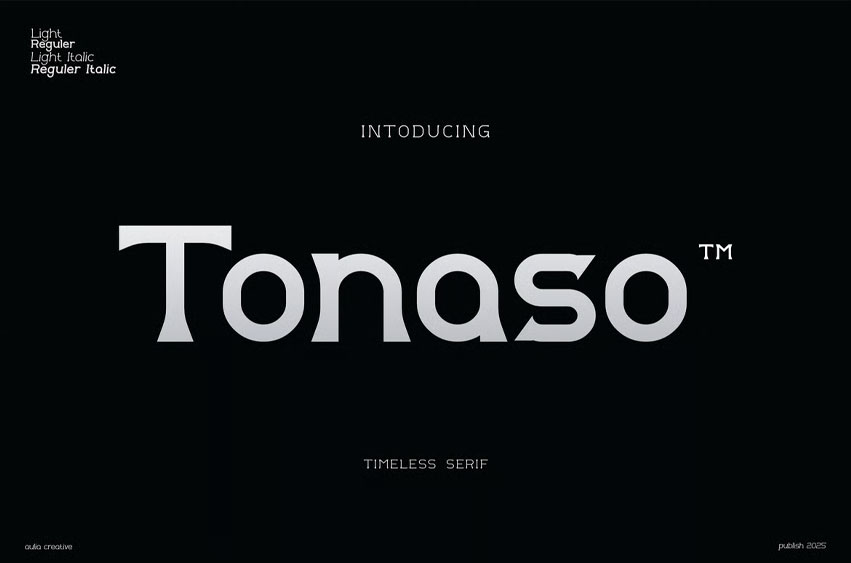
Tonaso Font
Tonaso Font Serif Font Corporate Font is an awesome and authentic display font.
Most suitable for poster design, headlines, quote writing, pamphlets, greeting cards, product packaging, book covers, logotypes, album covers, etc.